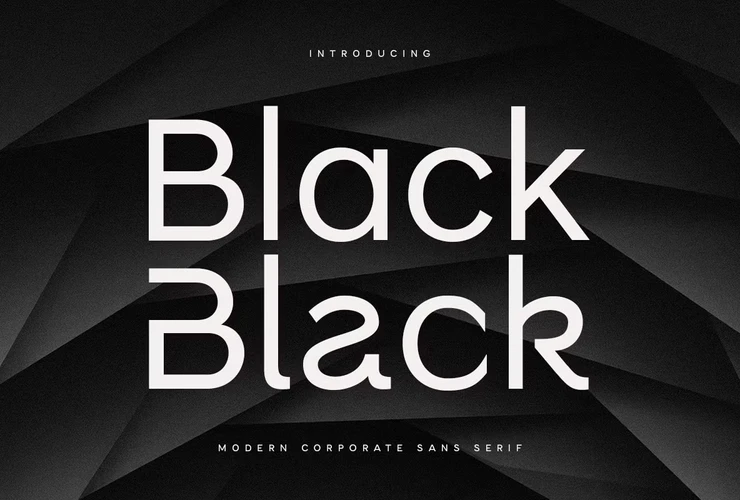
Black – Modern Corporate Sans Serif: Elevate Your Branding with Minimalist Elegance
The Black – Modern Corporate Sans Serif font by Mariela Dwi is a refined and contemporary typeface designed to enhance corporate branding and design projects. This font exudes sophistication and modernity, making it an ideal choice for various professional applications. With its minimalist and unique sans serif style, the Black font family offers two versatile weights—Regular and Bold—allowing for seamless integration into a wide range of design contexts.
Features and Versatility
The Black font family is meticulously crafted to ensure high legibility and aesthetic appeal. It includes alternate characters, a full set of A-Z alphabet, numerals, punctuation, and accented characters for West European languages. This comprehensive character set enables designers to create visually cohesive and striking designs, whether for logos, posters, social media posts, advertisements, product packaging, or stationery.
The font’s clean and sleek design makes it an excellent choice for modern branding projects. Its minimalist style lends itself well to creating a polished and professional look, while the alternate characters provide the flexibility to experiment with unique shapes and layouts. The Black font family is compatible with both PC and Mac systems and is recommended for use with Adobe Illustrator or Adobe Photoshop for optimal results.